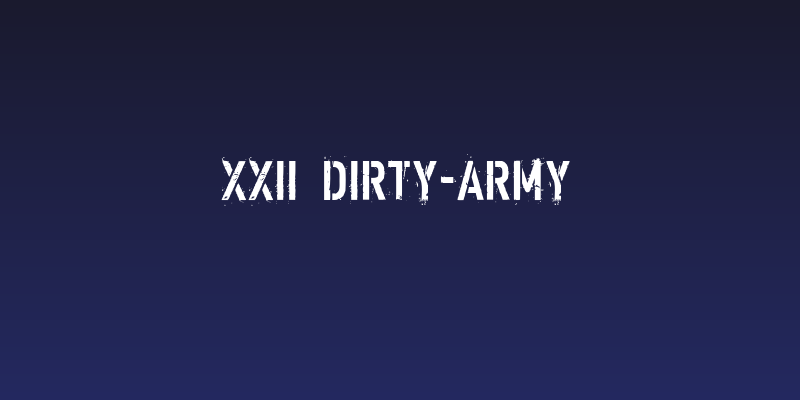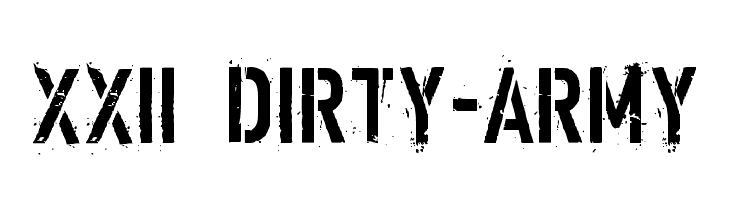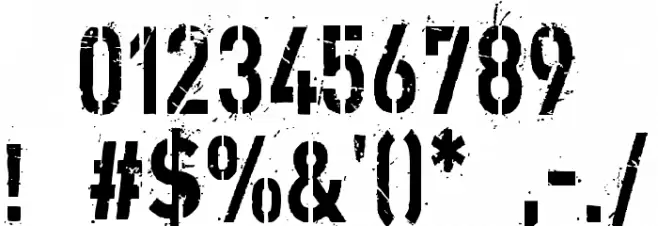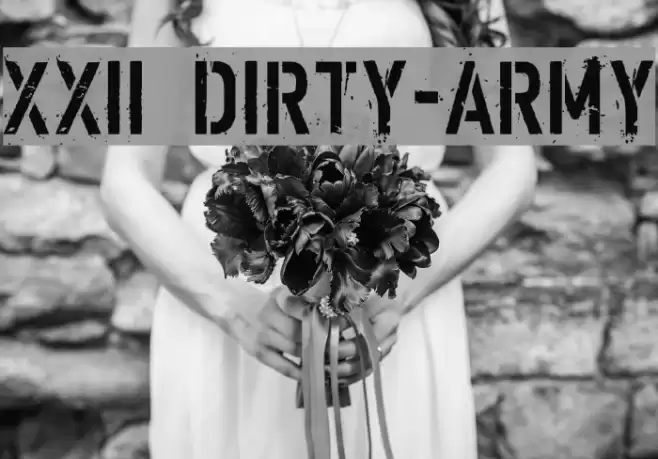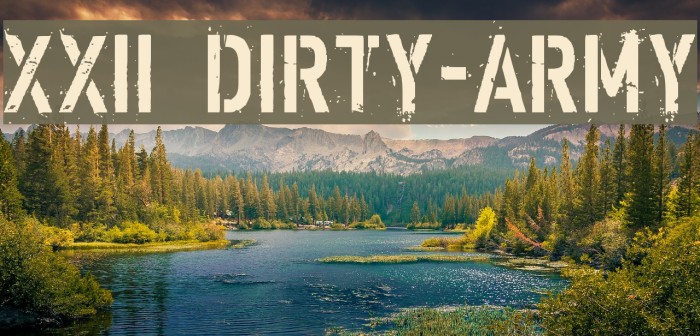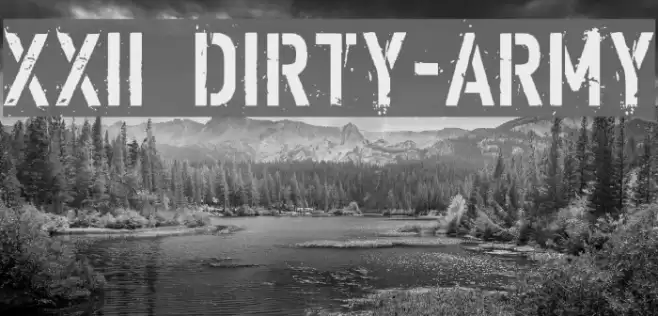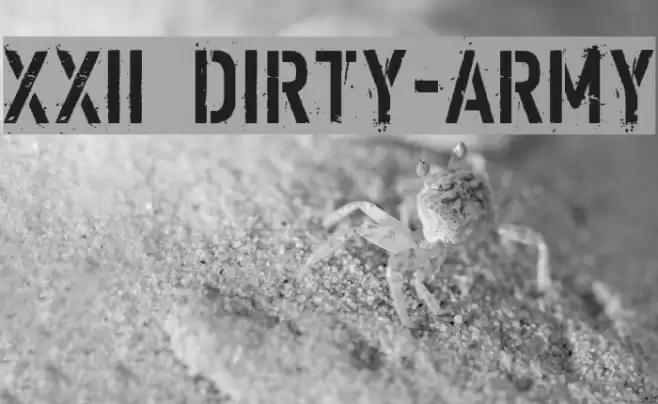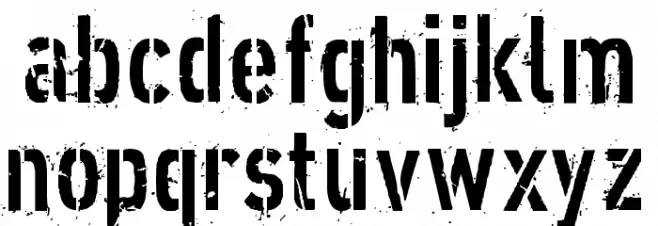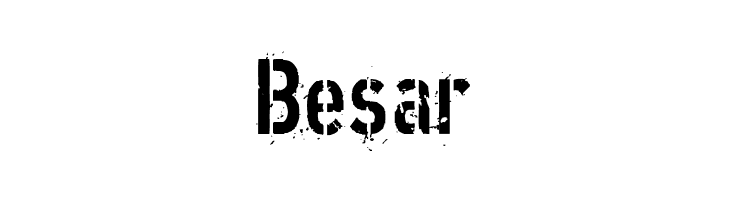
XXII DIRTY-ARMY Font
✎ Stencil
| Общий стиль | Urban, Industrial, Distressed |
| Область применения | Headlines, Posters, Branding |
| Рекомендуемые проекты | Ideal for projects requiring a rugged, industrial look such as posters, album covers, streetwear branding, or urban-themed graphics. |